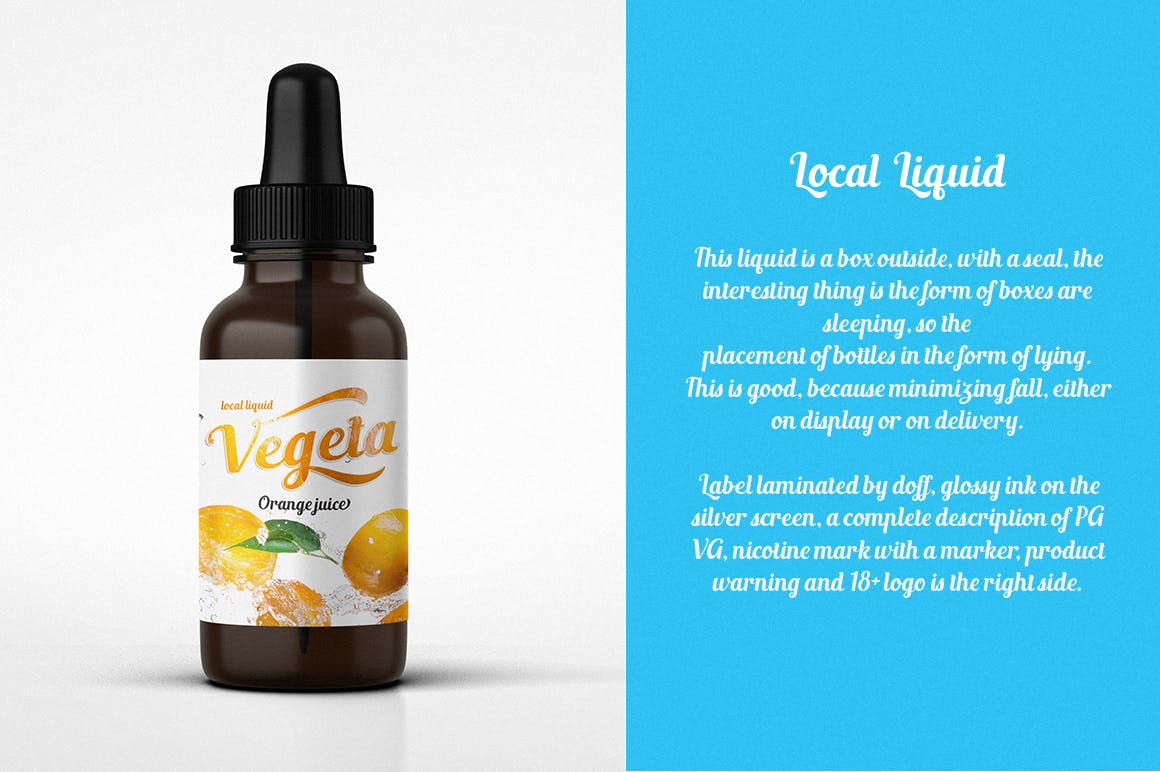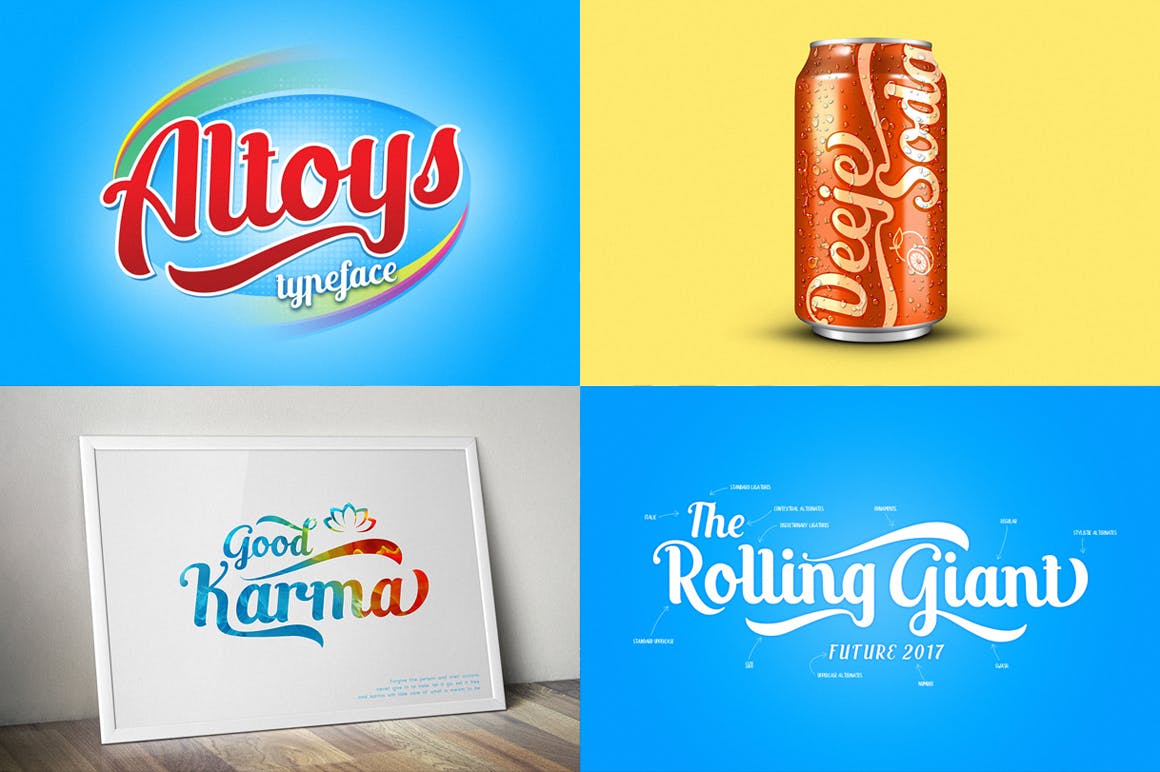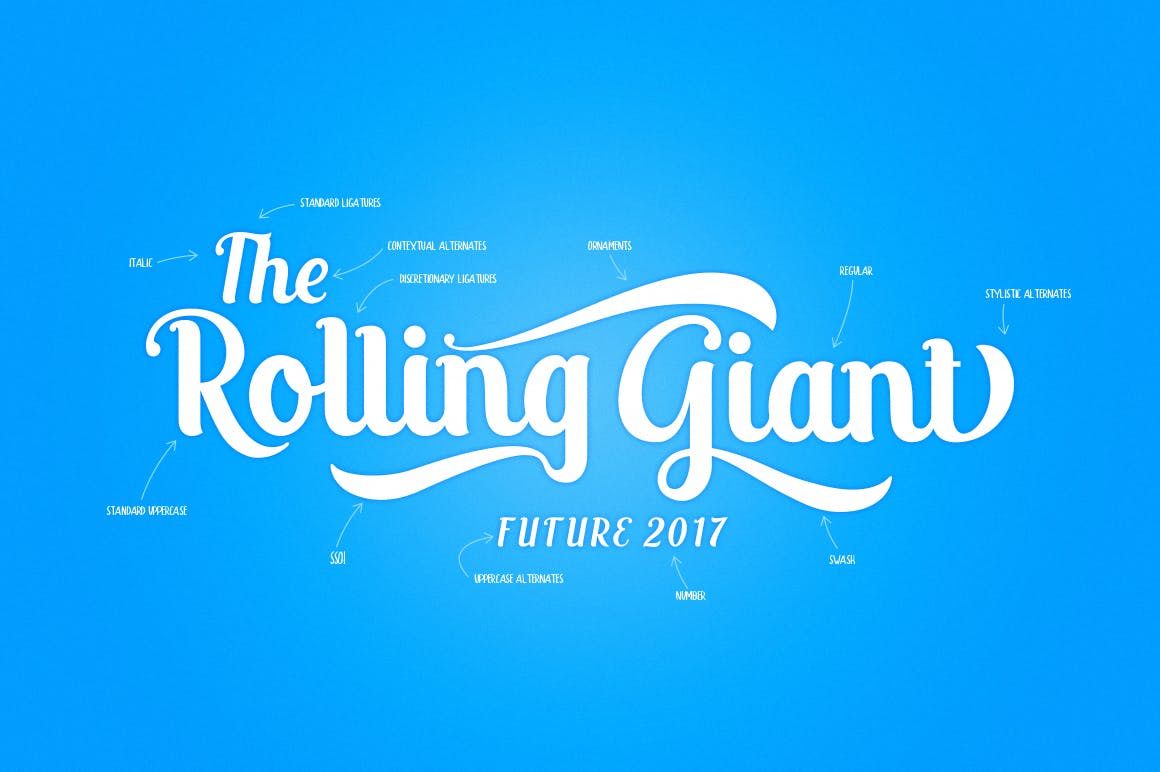
Altoys Italic Free Demo Typeface
Altoys Italic Free Demo Typeface is a gorgeous and curvaceous new font from Alit Design. Altoys is here to for a wide range of purpose. As we can see in the previews, it looks great and ideal as branding and logotype. It catches attention even from distance. Altoys also suitable for posters, advertising banner and a lot more!